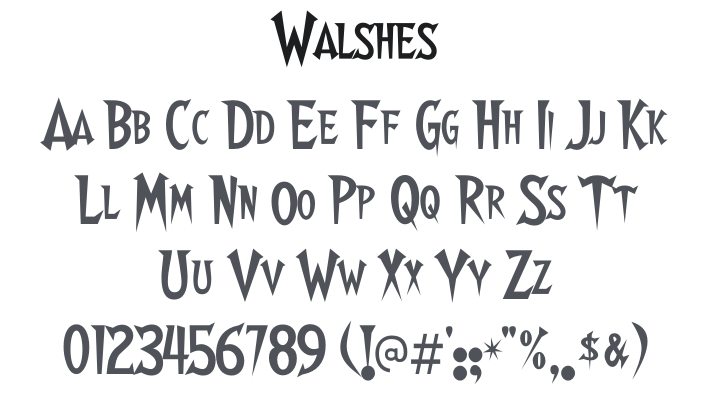
Walshes Font
About Walshes
Walshes is a bold, condensed gothic display typeface with sharp, angular serifs and slightly uneven letterforms that evoke medieval script and heavy metal band logos — aggressive, edgy, and unapologetically rough around the edges. Its creator considers it a cautionary tale, but its raw, confrontational personality has genuine appeal. Perfect for metal band branding, horror titles, underground posters, and any headline needing fierce, dark gothic attitude.